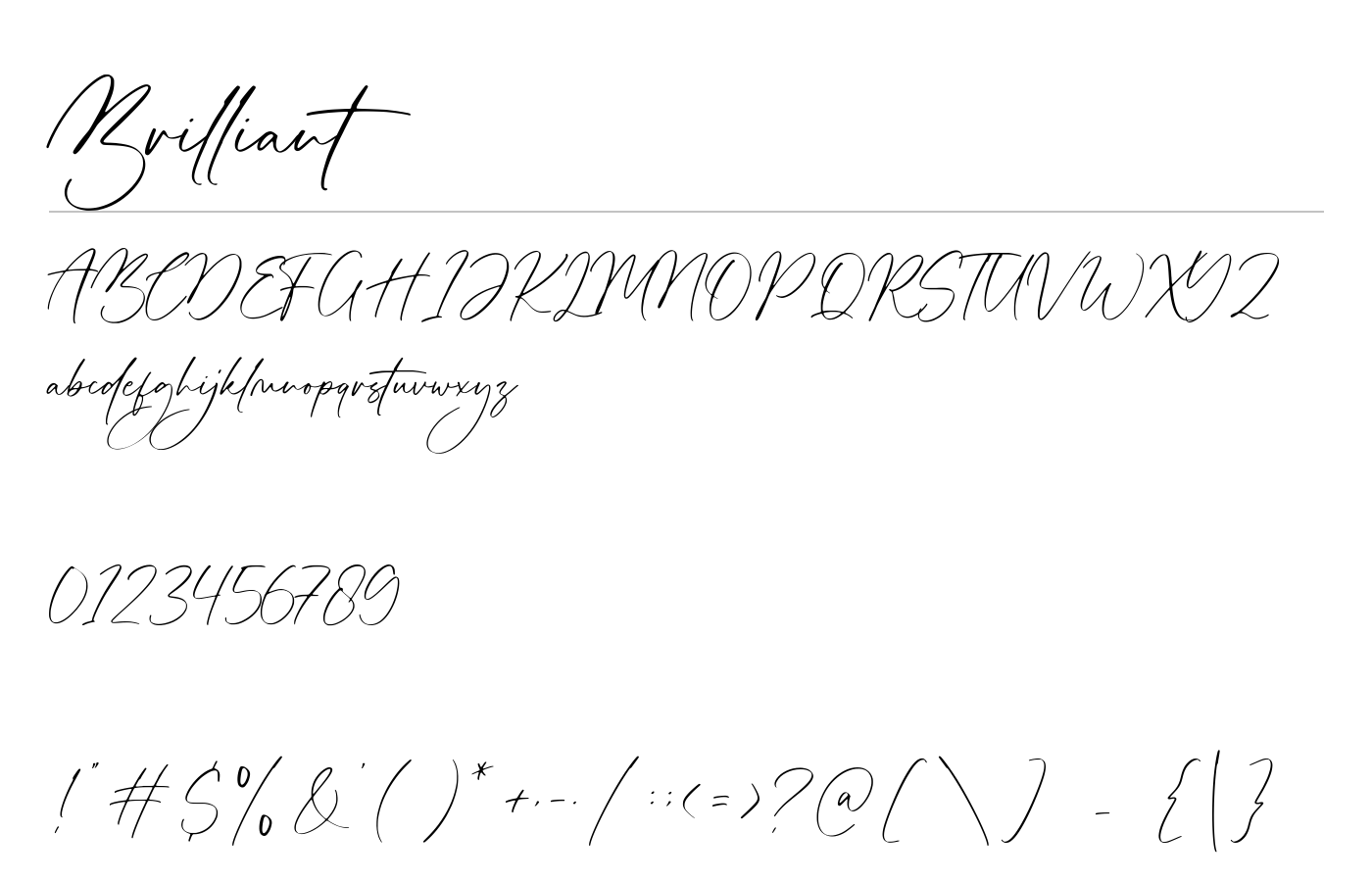
Brilliant Font is an elegant, handwritten script with a light, airy feel characterized by delicate, flowing strokes and high contrast between thick and thin lines. Its sophisticated yet playful style makes it perfect for luxury branding, wedding invitations, and creative headlines where a personal, refined touch is desired. This font’s graceful letterforms and smooth curves lend a sense of modern elegance ideal for fashion, beauty, and lifestyle projects.
Brilliant Font
About Brilliant Font
| Font family | Brilliant Font |